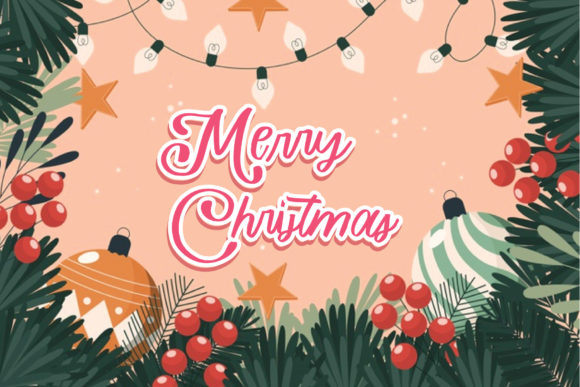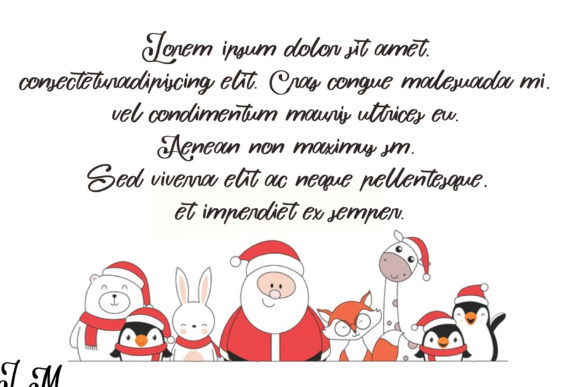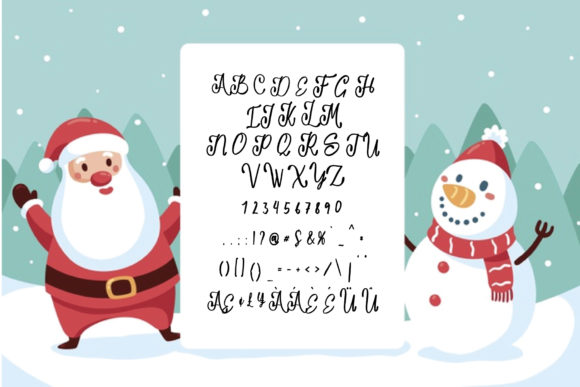
Happy New Year Font: Add a Touch of Whimsy to Your Designs
As the clock strikes midnight on New Year’s Eve, the world welcomes a fresh start, filled with new possibilities and creative endeavors. For designers and crafters, the start of a new year is the perfect opportunity to refresh their design libraries and explore new typography options. If you’re on the hunt for a font that’s fun, quirky, and perfect for creating spectacular designs, look no further than the Happy New Year font.
What is Happy New Year Font?
Happy New Year is a fun and quirky handwritten font that’s designed to bring a touch of whimsy to your designs. With its unique and playful style, this font is perfect for creating eye-catching headings, titles, and quotes that are sure to grab attention. Whether you’re working on a New Year’s-themed project or simply want to add some personality to your designs, Happy New Year font is the perfect choice.
Key Features of Happy New Year Font
- Handwritten style: Happy New Year font boasts a charming handwritten style that’s perfect for adding a personal touch to your designs.
- Unique and quirky: This font’s playful and whimsical design makes it stand out from more traditional typography options.
- Perfect for designs: Happy New Year font is ideal for creating spectacular designs, from party invitations and social media graphics to blog posts and more.
Creative Ways to Use Happy New Year Font
So, how can you use Happy New Year font to take your designs to the next level? Here are a few creative ideas to get you started:
- New Year’s party invitations: Create eye-catching invitations that set the tone for a fun and festive celebration.
- Social media graphics: Use Happy New Year font to create engaging social media graphics that wish your followers a happy new year.
- Blog posts and articles: Add a touch of personality to your blog posts and articles with Happy New Year font.
- DIY craft projects: Use this font to create custom titles and headings for your DIY craft projects, from handmade cards to scrapbooking pages.
Tips for Pairing Happy New Year Font with Other Design Elements
To get the most out of Happy New Year font, try pairing it with other design elements that complement its playful and whimsical style. Here are a few tips:
- Combine with bold colors: Pair Happy New Year font with bold, bright colors to create a design that’s fun and eye-catching.
- Use with simple backgrounds: Keep your background simple and clean to let Happy New Year font take center stage.
- Add illustrations and graphics: Incorporate illustrations and graphics that match the playful style of Happy New Year font to create a cohesive design.
| Font Name | Happy New Year Font |
| Author | goodigital |
Happy New Year font is a fun and quirky handwritten font that’s perfect for adding a touch of whimsy to your designs. With its unique and playful style, this font is ideal for creating spectacular designs that are sure to grab attention. Whether you’re a designer, crafter, or simply someone who loves to get creative, Happy New Year font is a great addition to your design library. So why not give it a try and see how you can use it to take your designs to the next level?